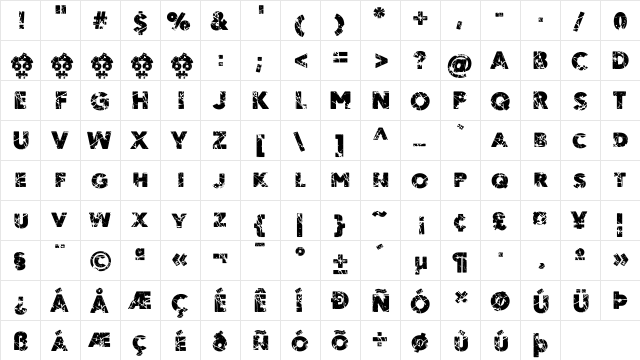
Ordeal Eroded Regular
| Foundry | deFharo |
| Designer | Fernando Haro |
Design Context for Ordeal Eroded Typeface
Ordeal Eroded trades polish for personality, using distressed and eroded forms to bring grit and attitude to creative work.
Suited to punk-influenced zines, underground music branding, streetwear, and raw, anti-corporate design.